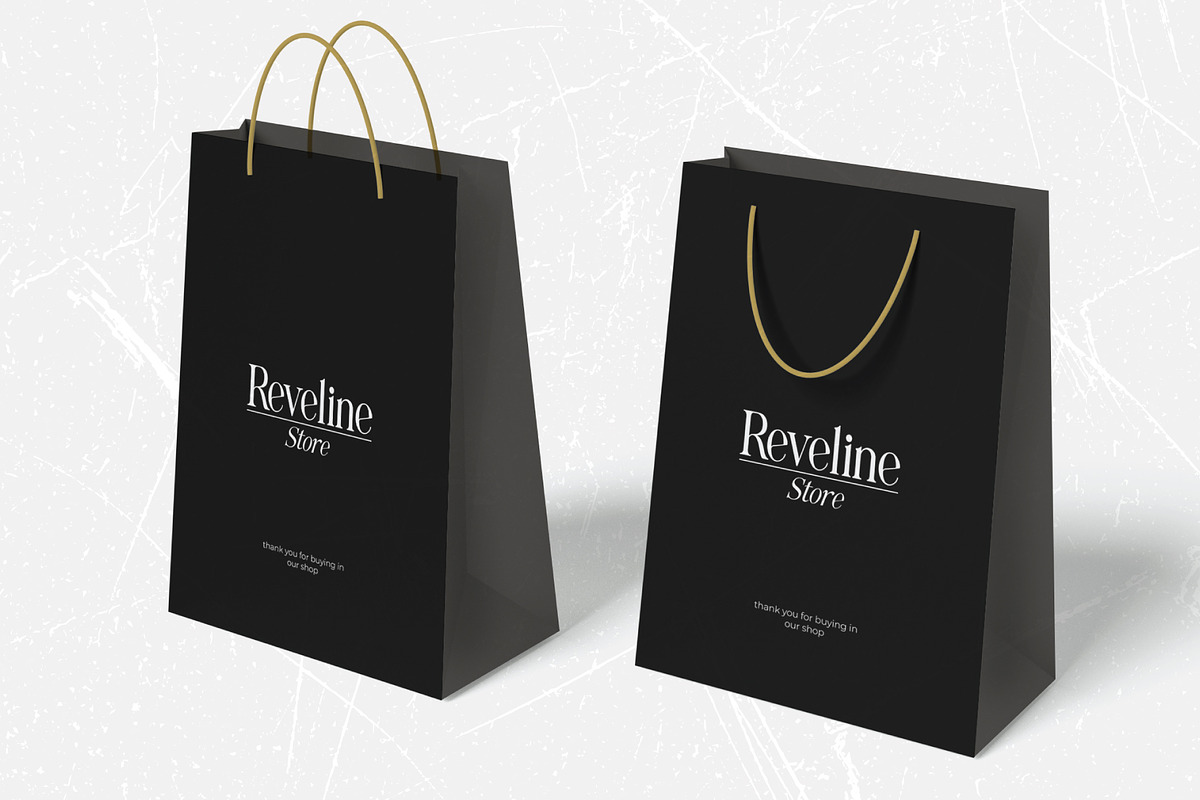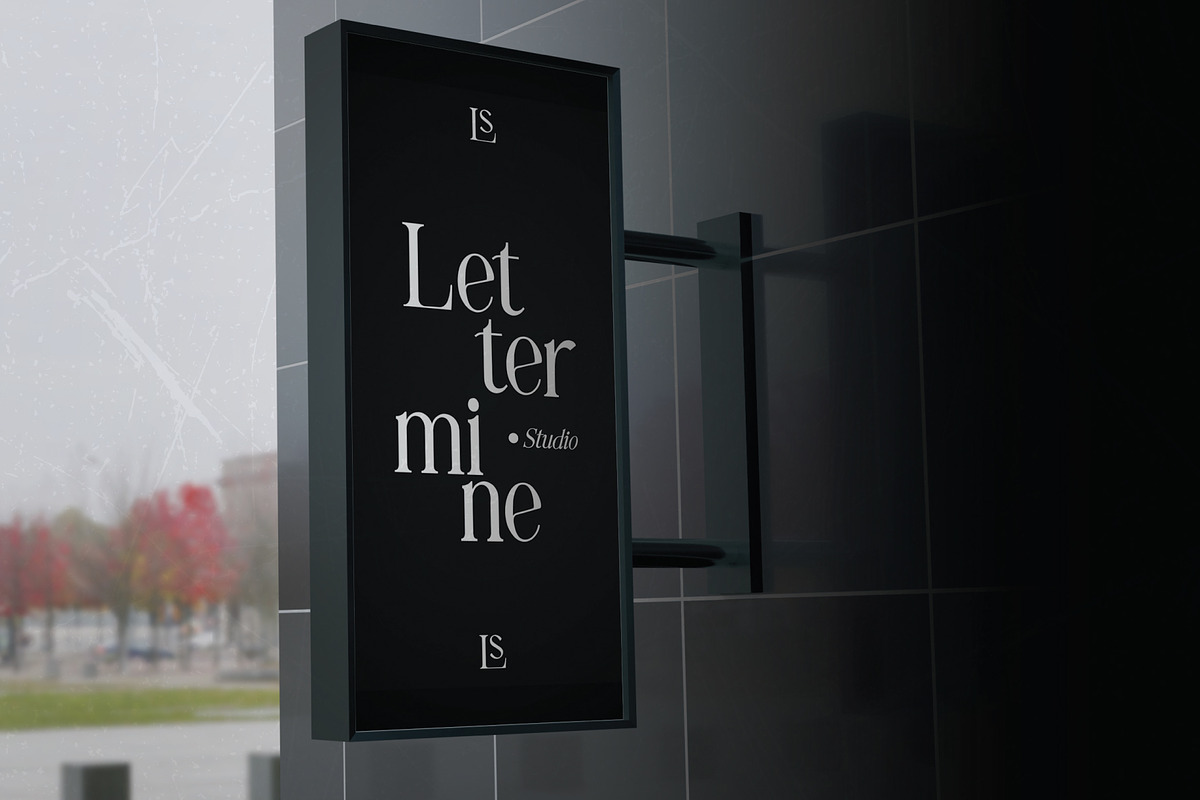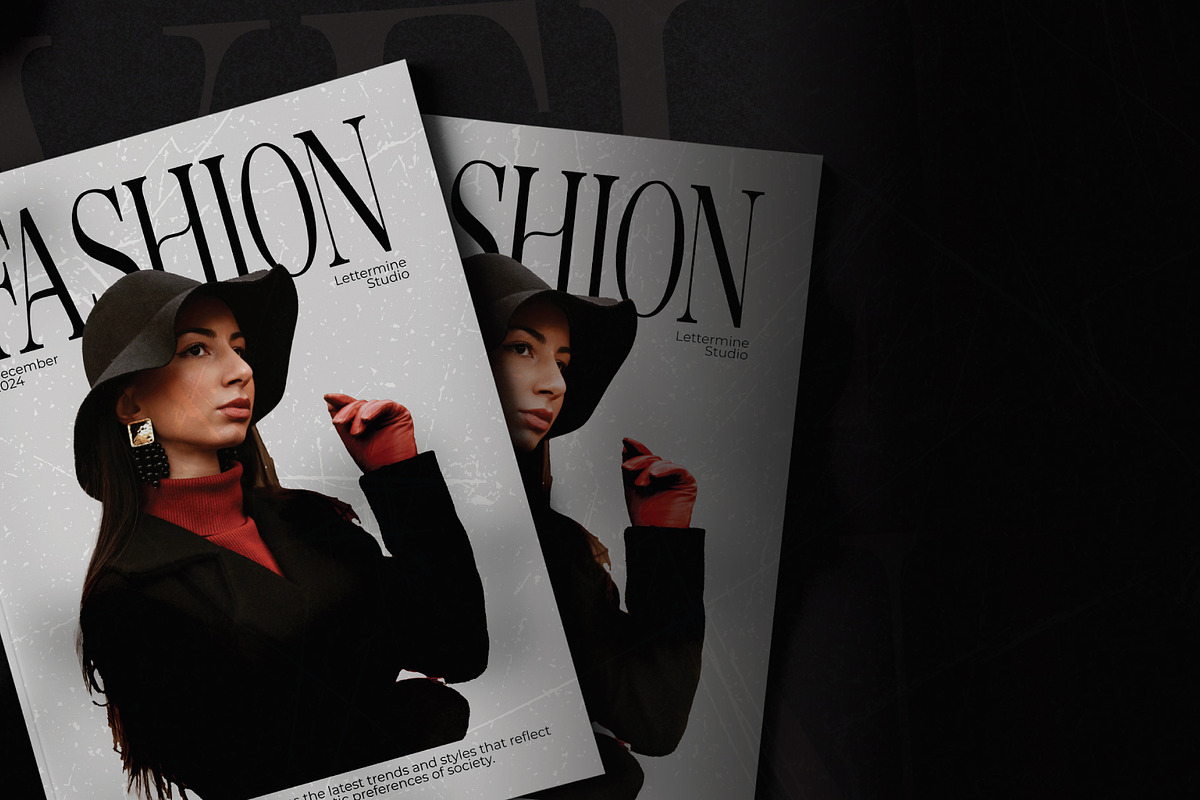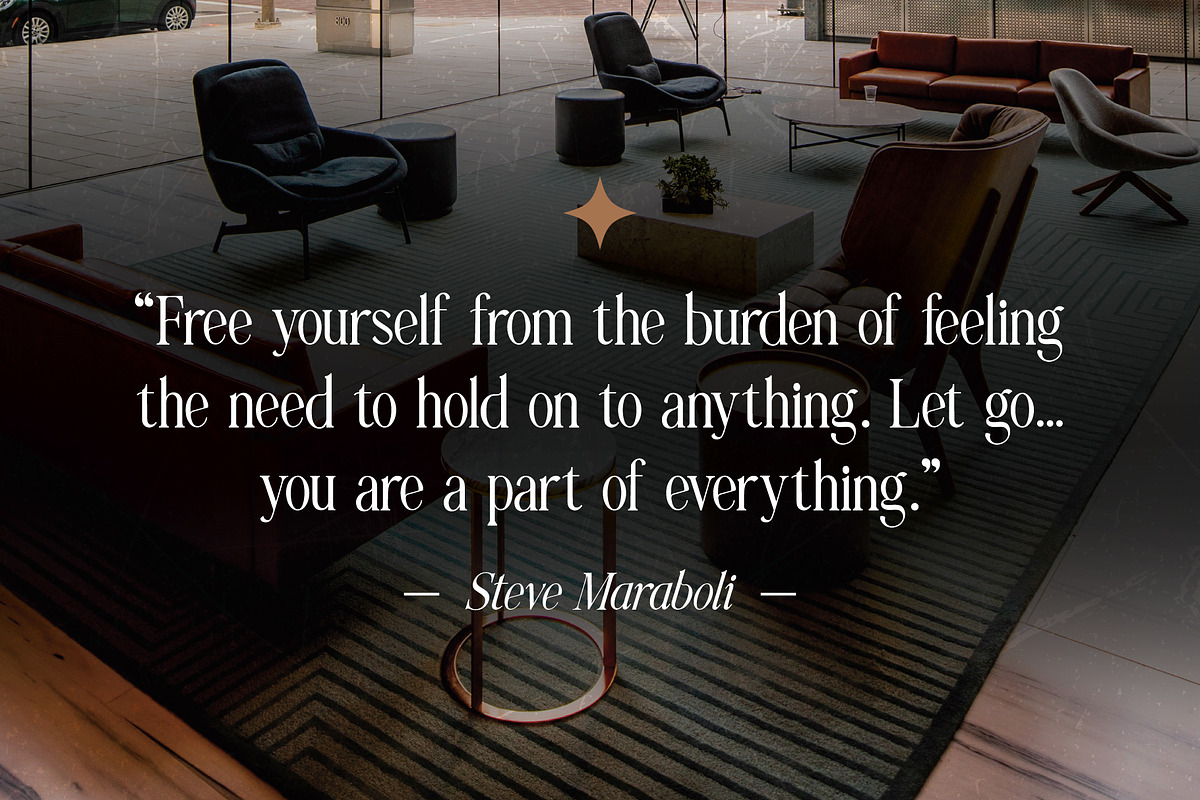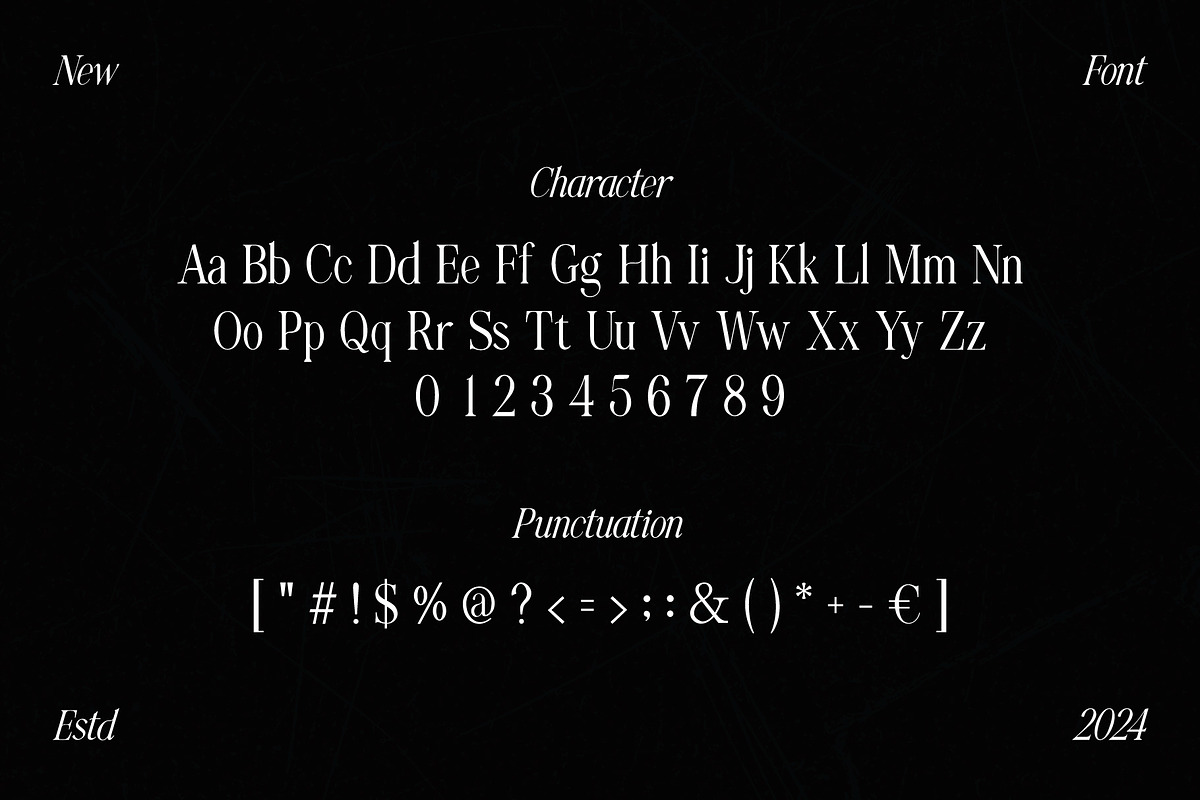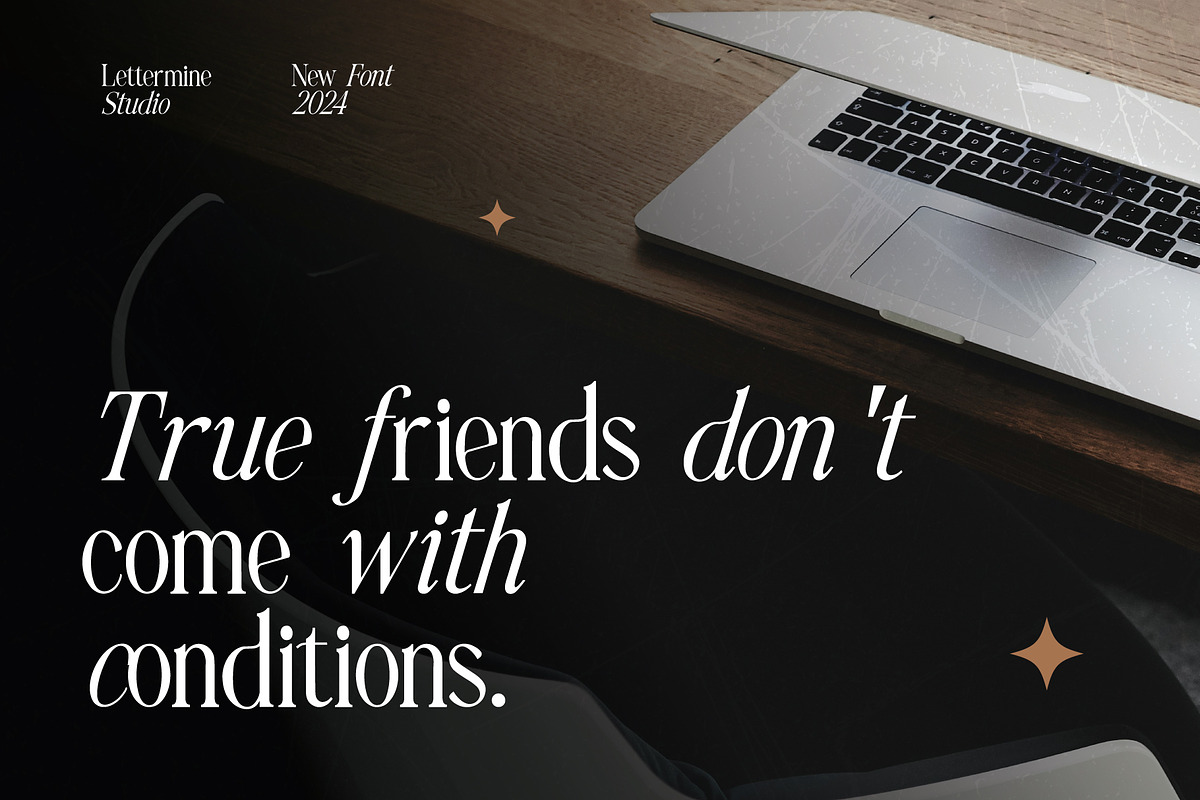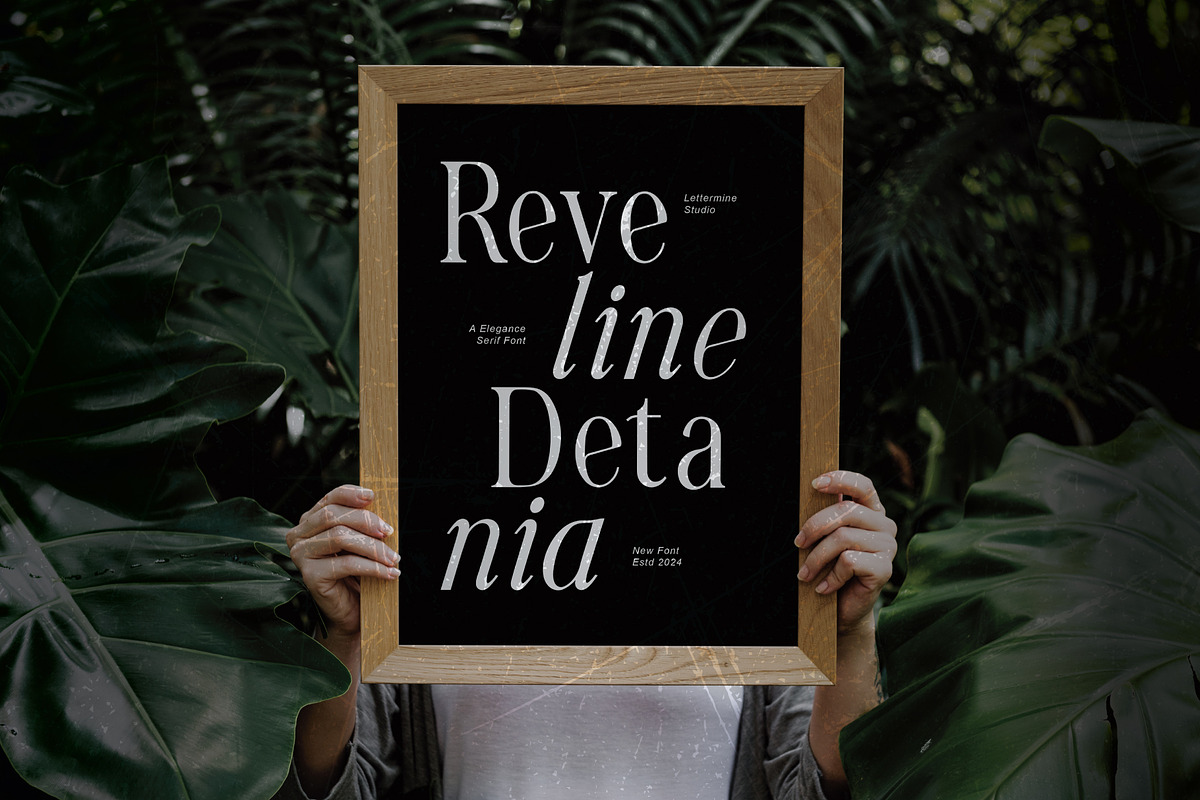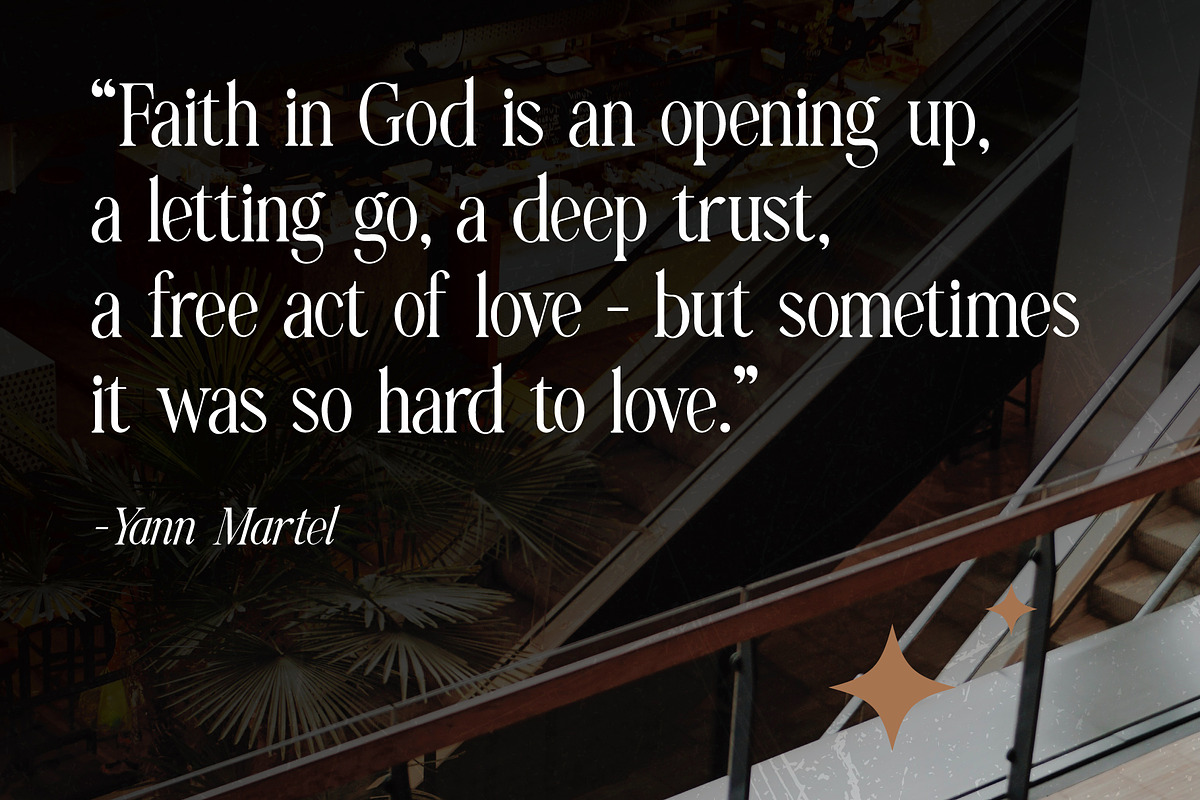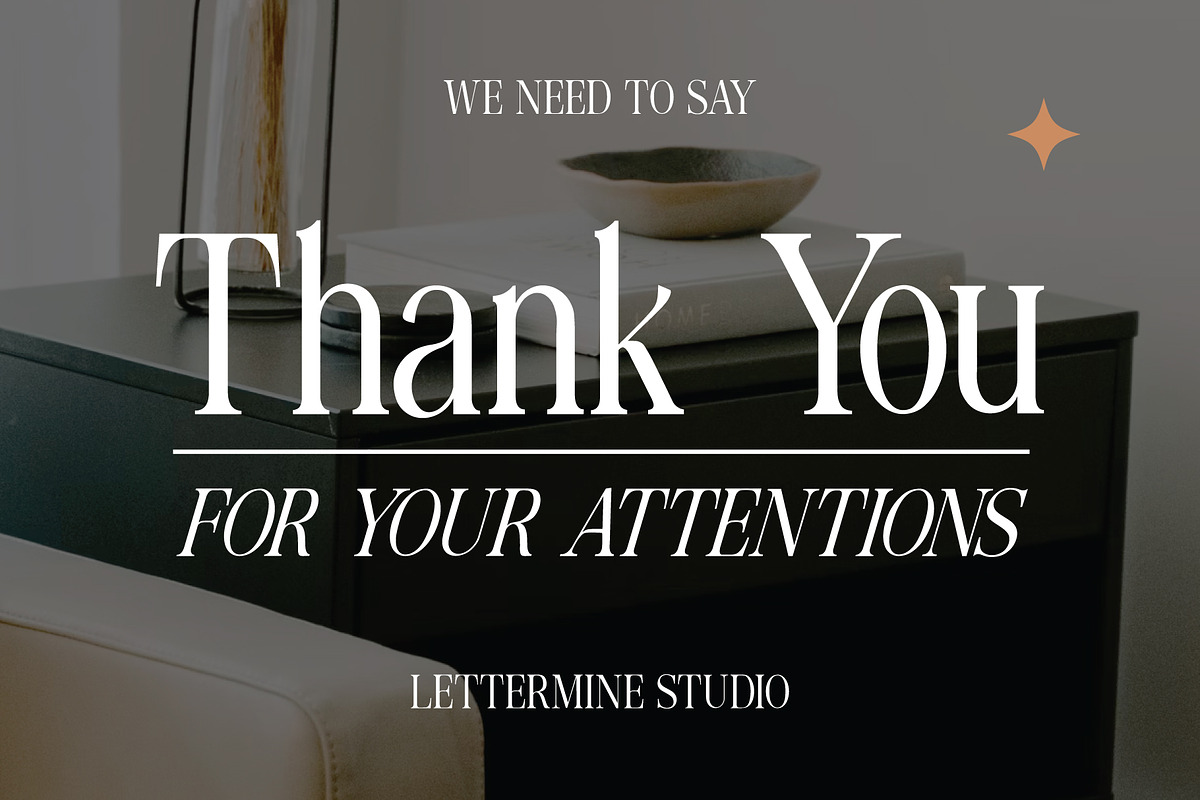
Reveline Detania - Elegant Serif
Introducing REVELINE DETANIA
An exquisite Elegant Serif font meticulously crafted to infuse your projects with timeless sophistication. This font seamlessly merges traditional elegance with a modern twist, offering a refined touch to your designs.
- Alternatives
REVELINE DETANIA is perfect for:
- Elegant wedding invitations, radiating sophistication and charm.
- Luxurious branding projects in pursuit of a refined aesthetic.
- Editorial designs seeking a timeless and classic appeal.
- Stylish product packaging that commands attention.
- Inspirational quotes and social media graphics adorned with an elegant touch.
Elevate your designs with REVELINE DETANIA and let its graceful serifs breathe life into your creative vision. Experience the harmonious blend of tradition and modernity.